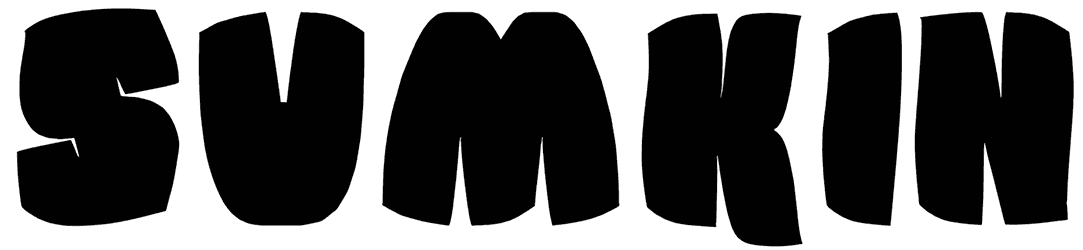
Sumkin Freetype Font
With this thick font and its bulky face, your context would be salient. Sumkin Freetype, as a fancy font with a hand-lettering style and a cute mood, is a nice show for a lot of designs like headlines, posters, covers, planners, and the like. There aren’t lowercase letters and most of the punctuation, but Sumkin Freetype supports two sets of capitals with various details.